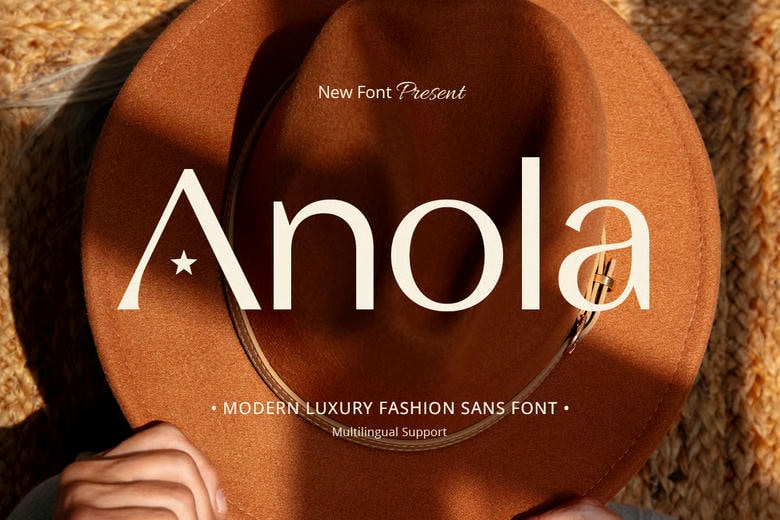
Anola Font
Anola Font is a modern sans-serif typeface that brings a sense of sophistication and contemporary style. Anola is inspired by premium branding, high-end style, and modern editorial design. It’s a great choice for projects that need a graceful and unique look.
Anola has clean lines, balanced proportions, and elegant details. Its polished look feels both modern and timeless. Allism with pairs well with luxury, making it a strong choice for premium branding and sophisticated visual communication.
Anola Sans Serif Font